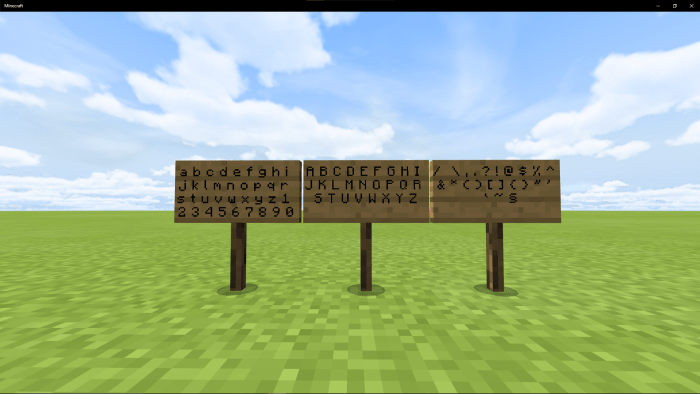
MC: Better Mojangles Font
Have you ever looked at the default Minecraft font and thought “Why does it look so spiky?” or “Why isn’t it more square?”
Well this pack aims to improve the default font by making it more square, and removing many of the annoying diagonal lines.
Before:
After: